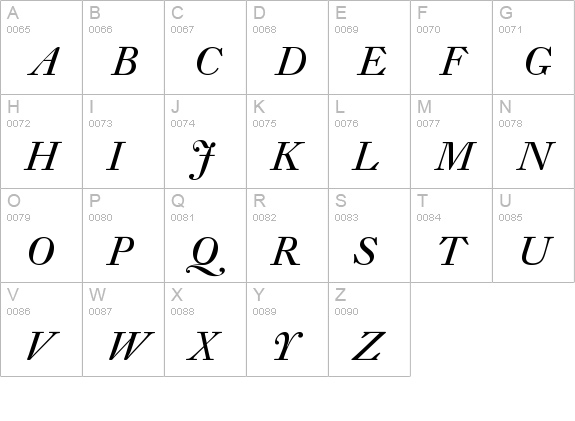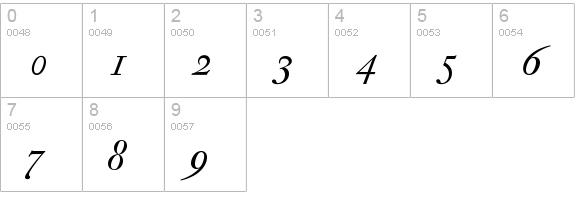
DTLFleischmannSD-Italic Font Details
DTLFleischmannSD-Italic is a distinctive, italic variant in the DTLFleischmannSD typeface family \xE2\x80\x94 well suited to design and typography projects.
The DTLFleischmannSD-Italic font is a stylish and elegant typeface that exudes sophistication and charm. Its sleek and slanted design adds a touch of modernity to any project, making it perfect for use in branding, invitations, and editorial designs. The italicized letterforms give a sense of movement and fluidity, creating a dynamic visual impact. What's more, this exquisite font is available for free download at FontsMarket.com, making it easily accessible for designers and creatives looking to elevate their work with a touch of class. Embrace the beauty and versatility of DTLFleischmannSD-Italic in your next project and watch it shine with effortless grace.